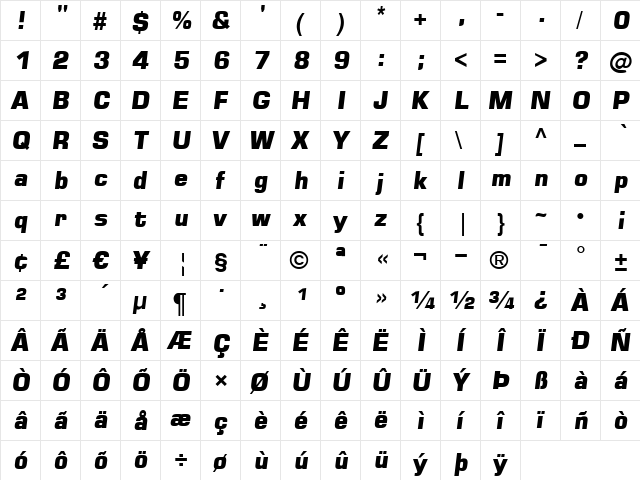
Square721 Blk Italic
Design Context for Square721 Blk Typeface
Square721 Blk offers clean, dependable letterforms without strong stylistic allegiance, making it a practical choice for designers who need flexibility. The slanted form adds forward momentum and visual energy.